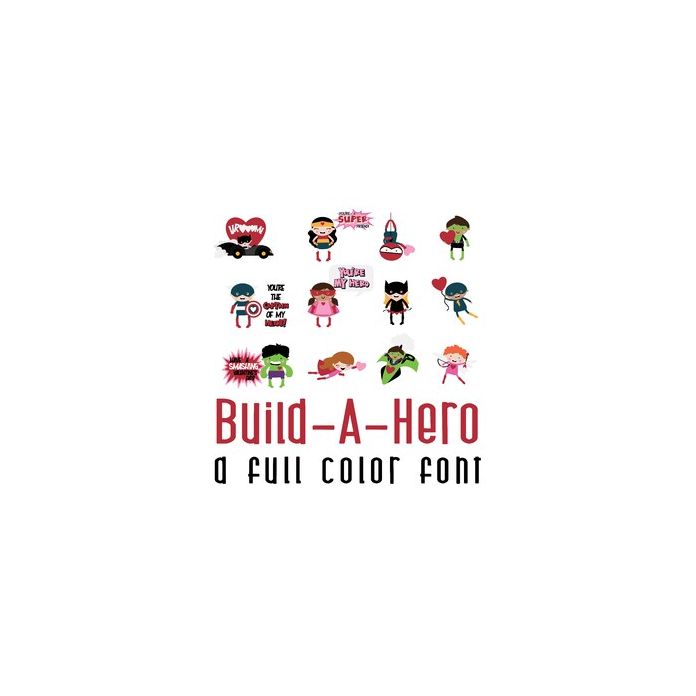
This adorable full-color doodlebat font features 29 super hero images ready for love. Perfect for cards, crafts, gifts, decor, scrapbook pages, planner stickers, and more! Glyphs are A-Z and 0-3